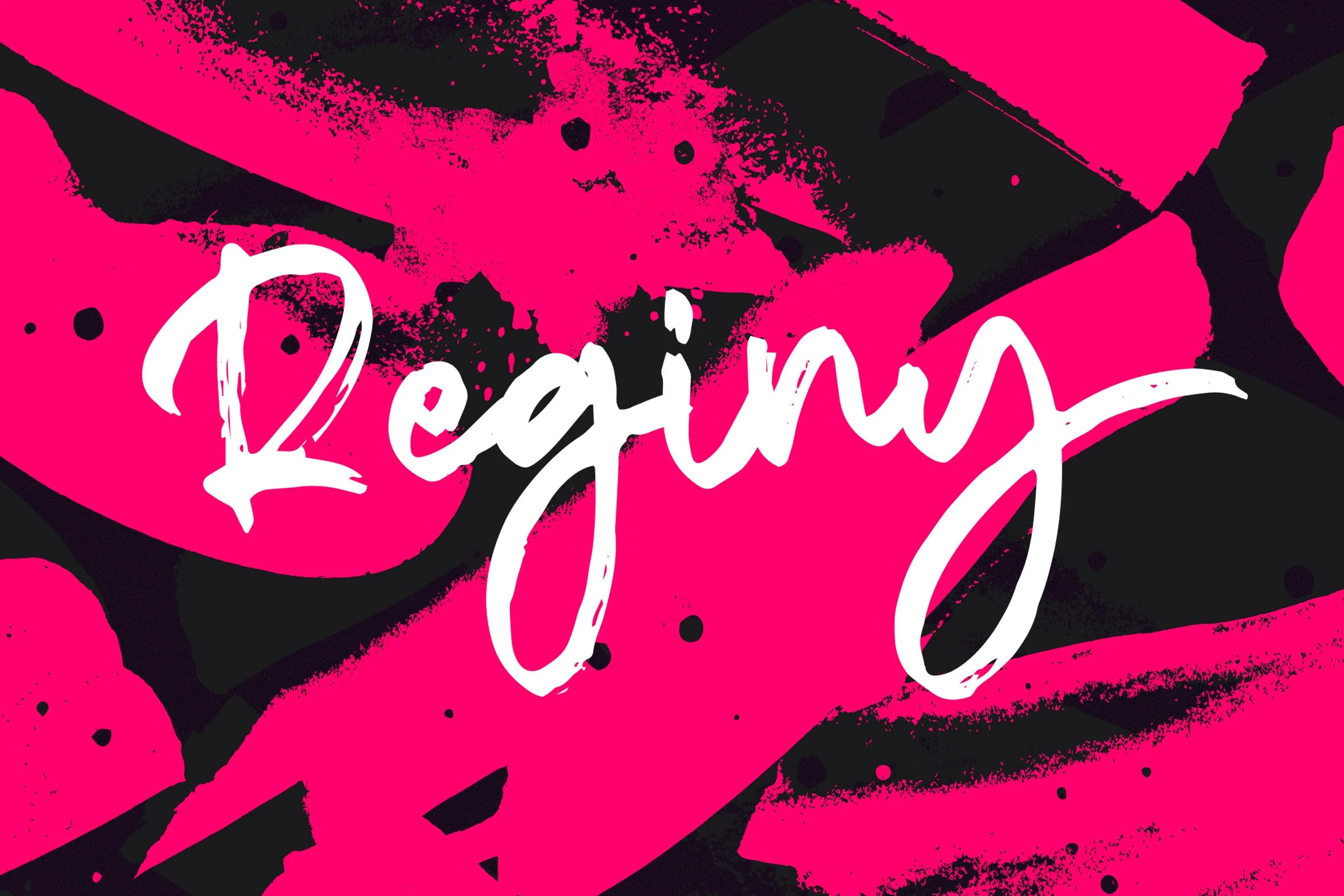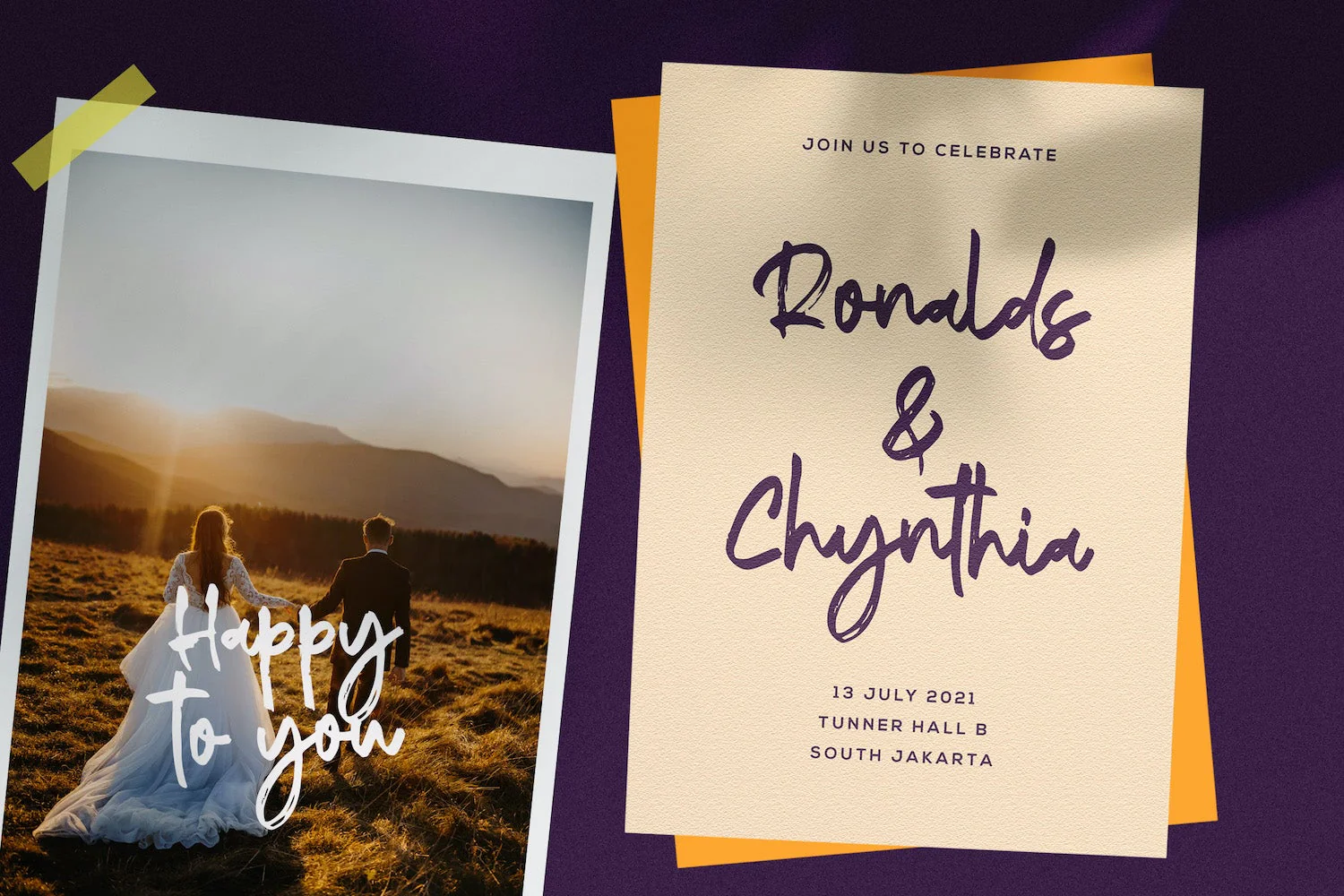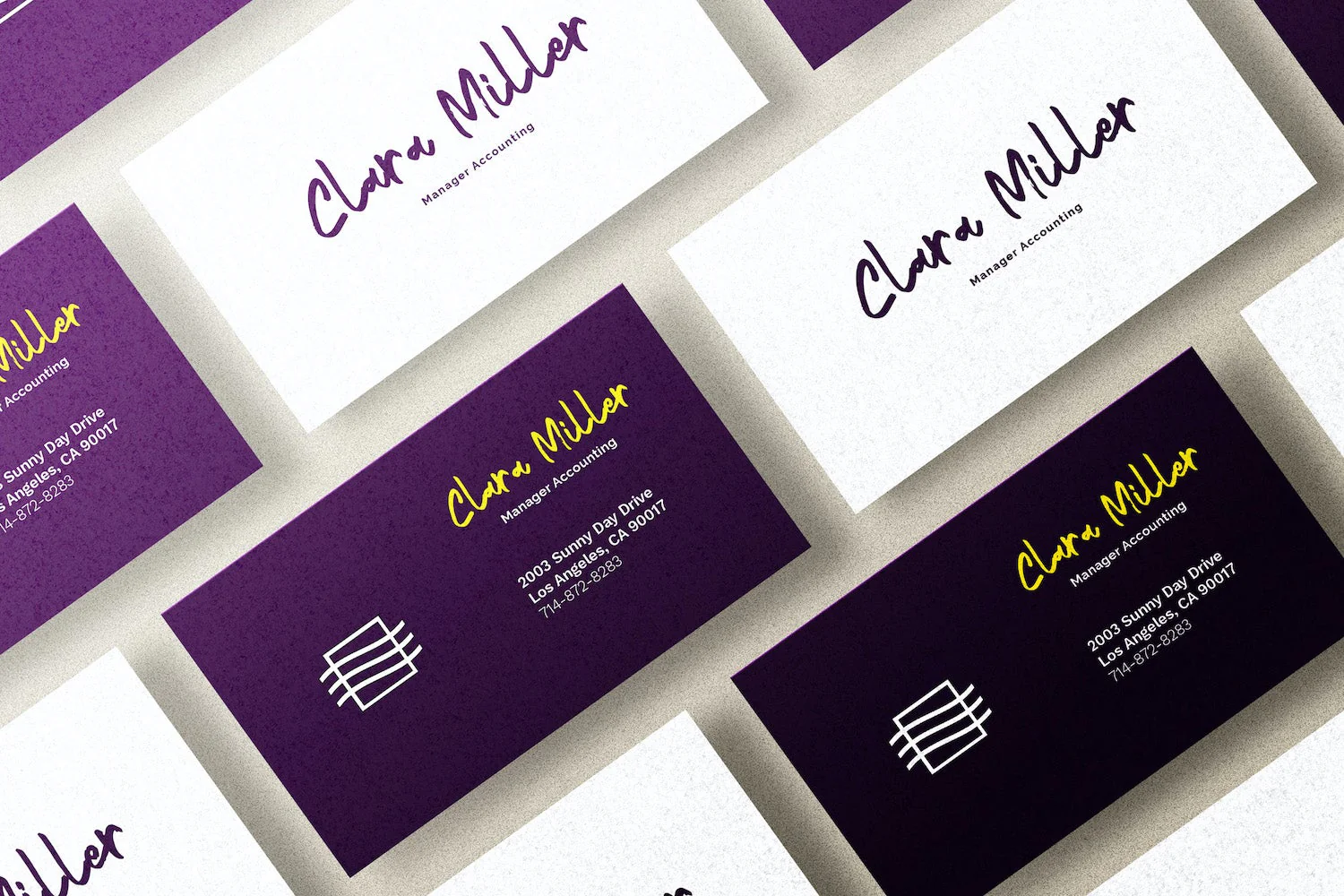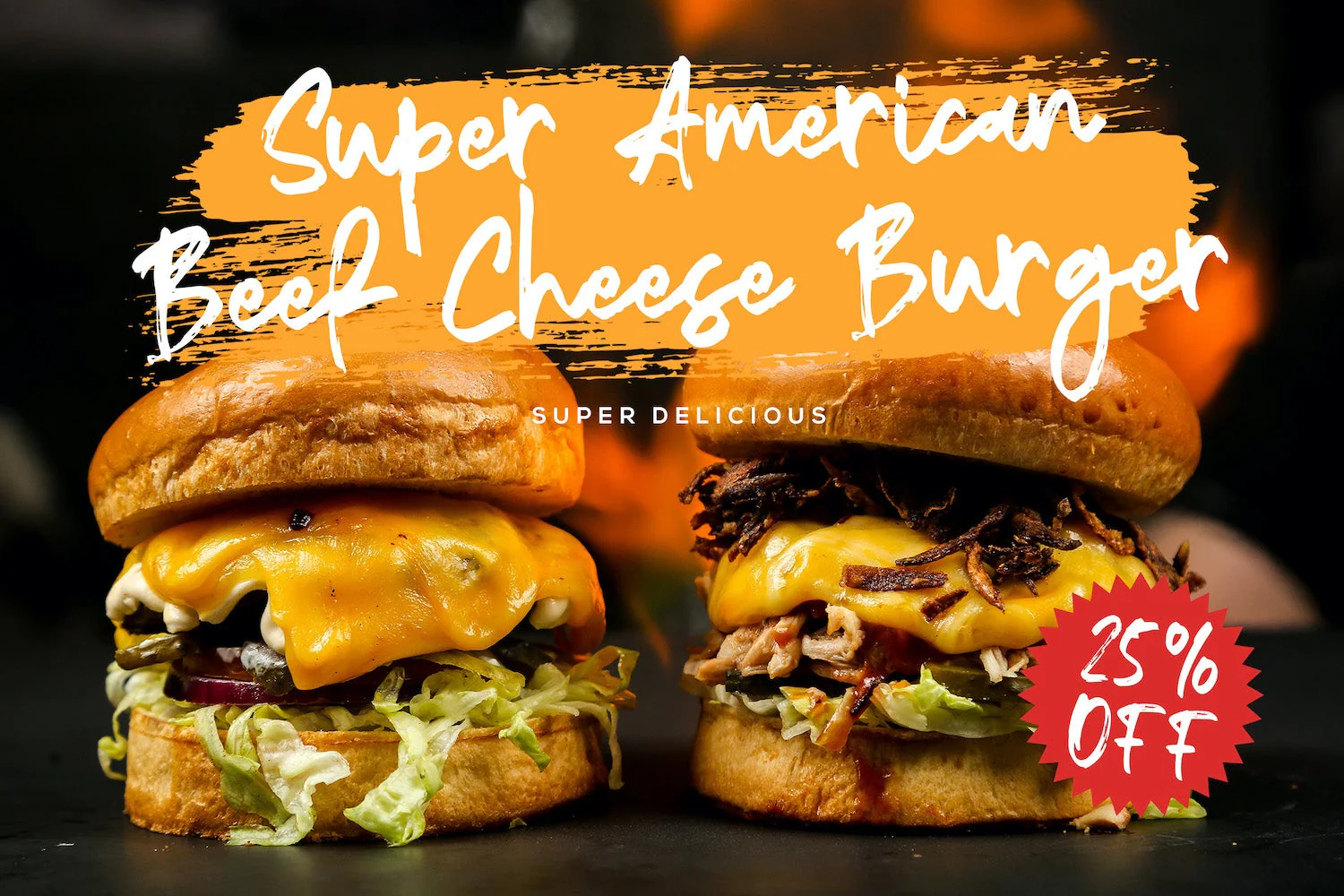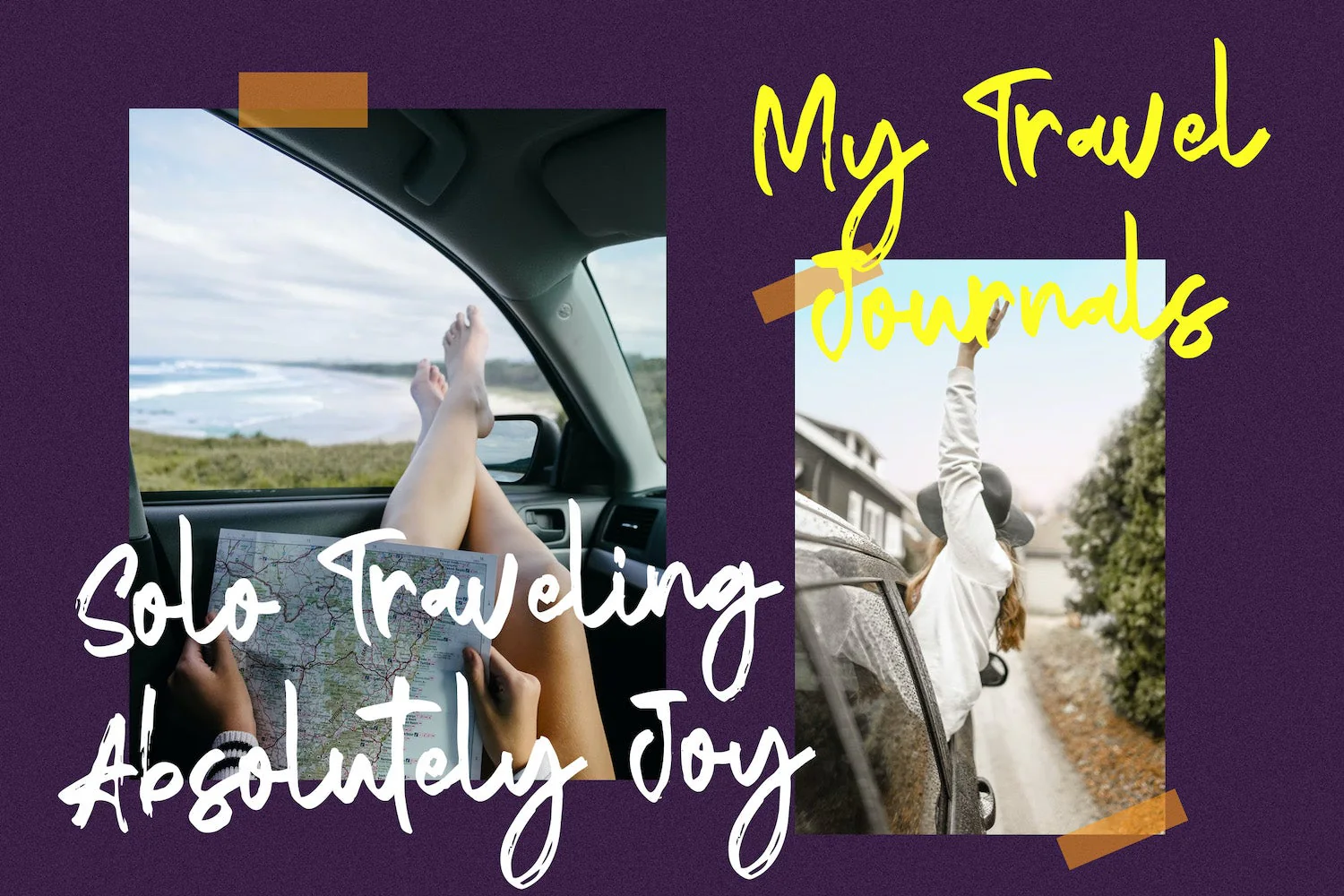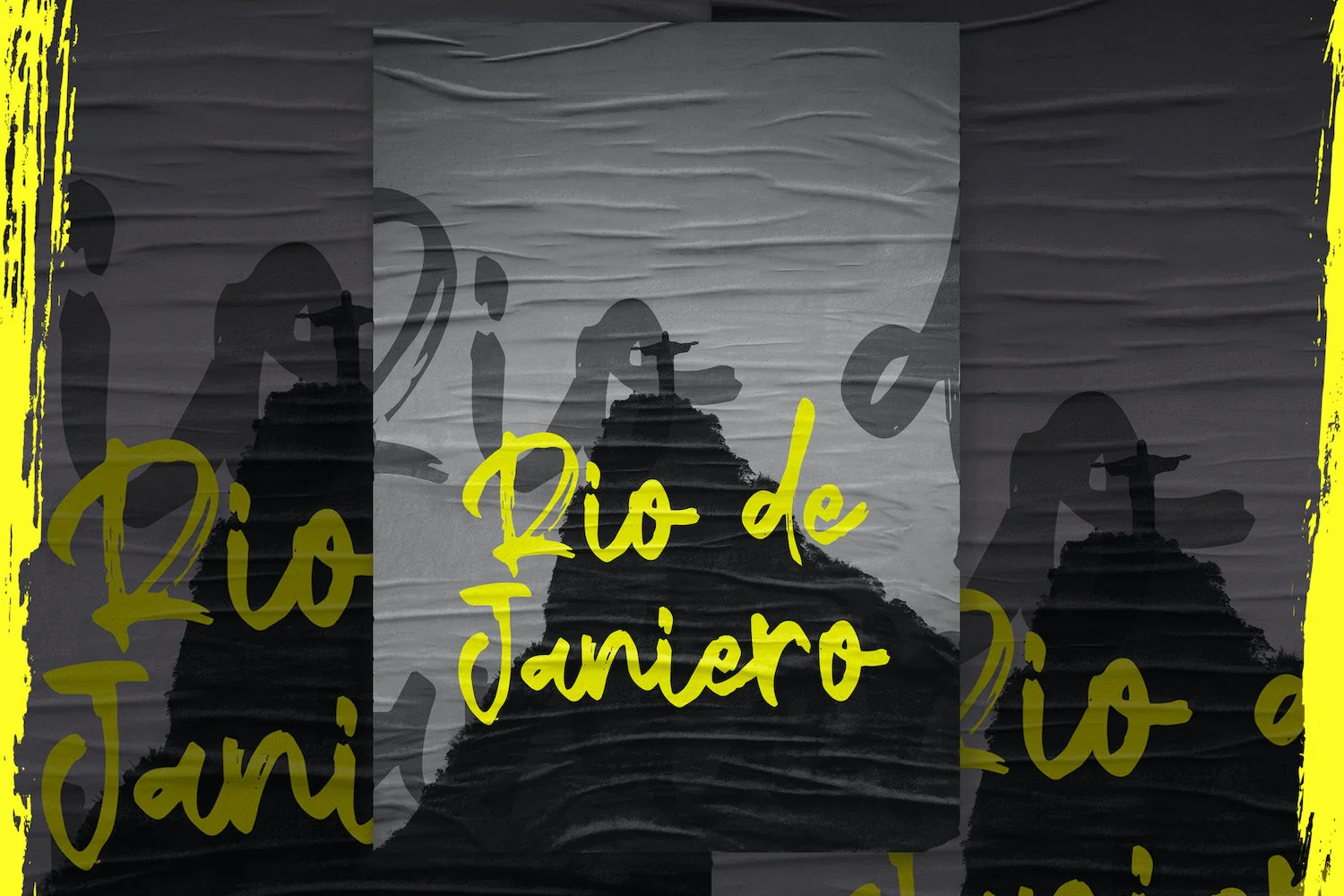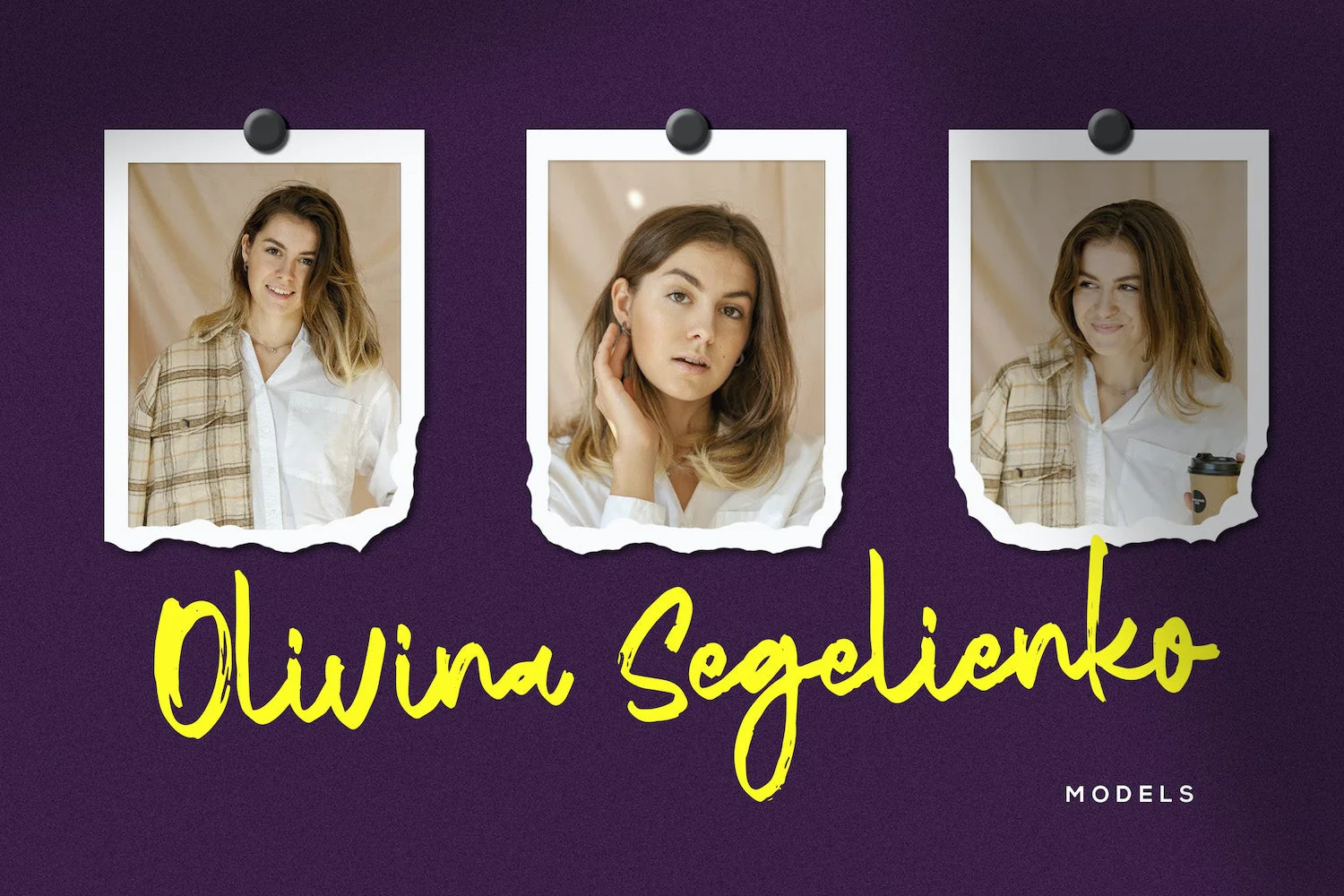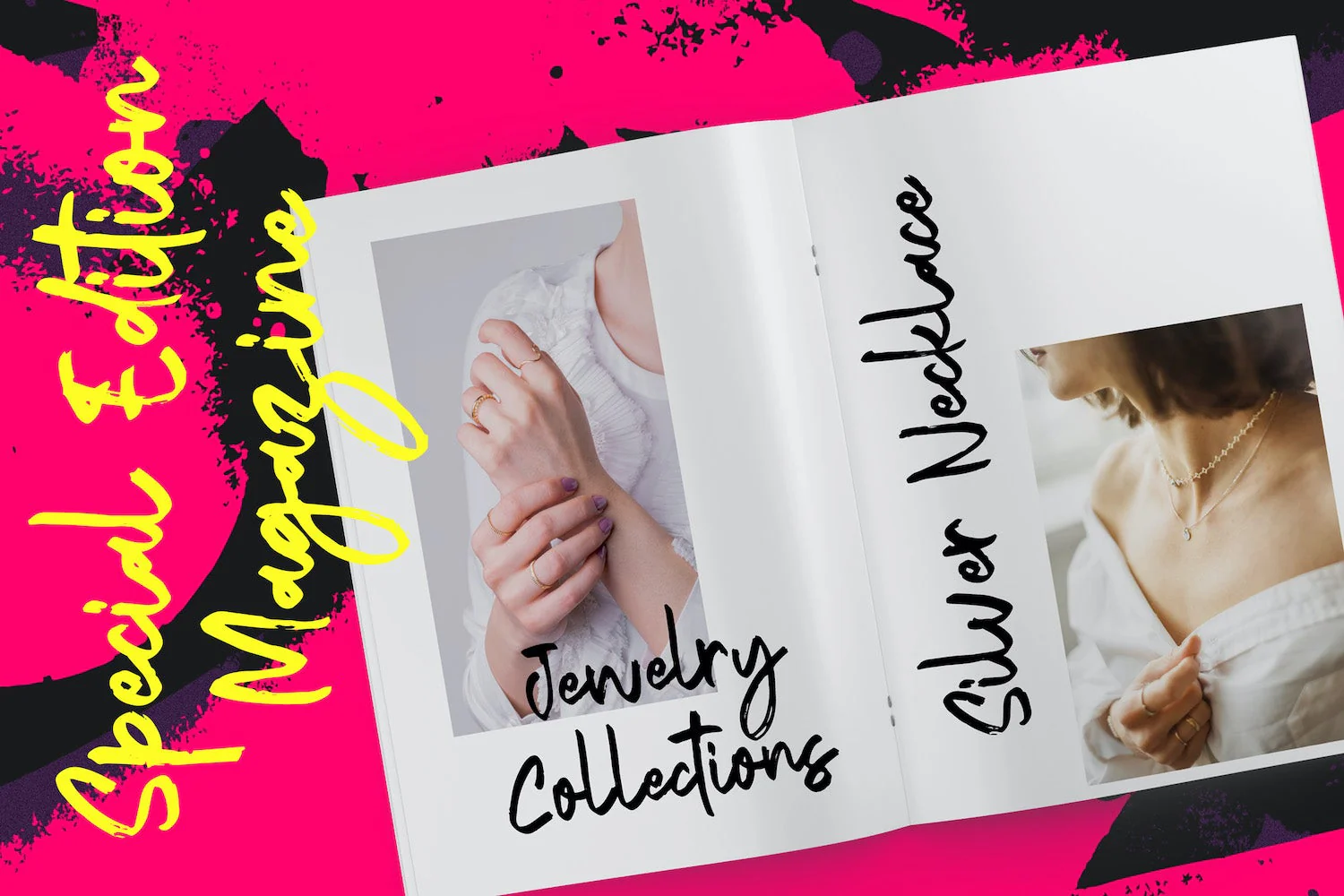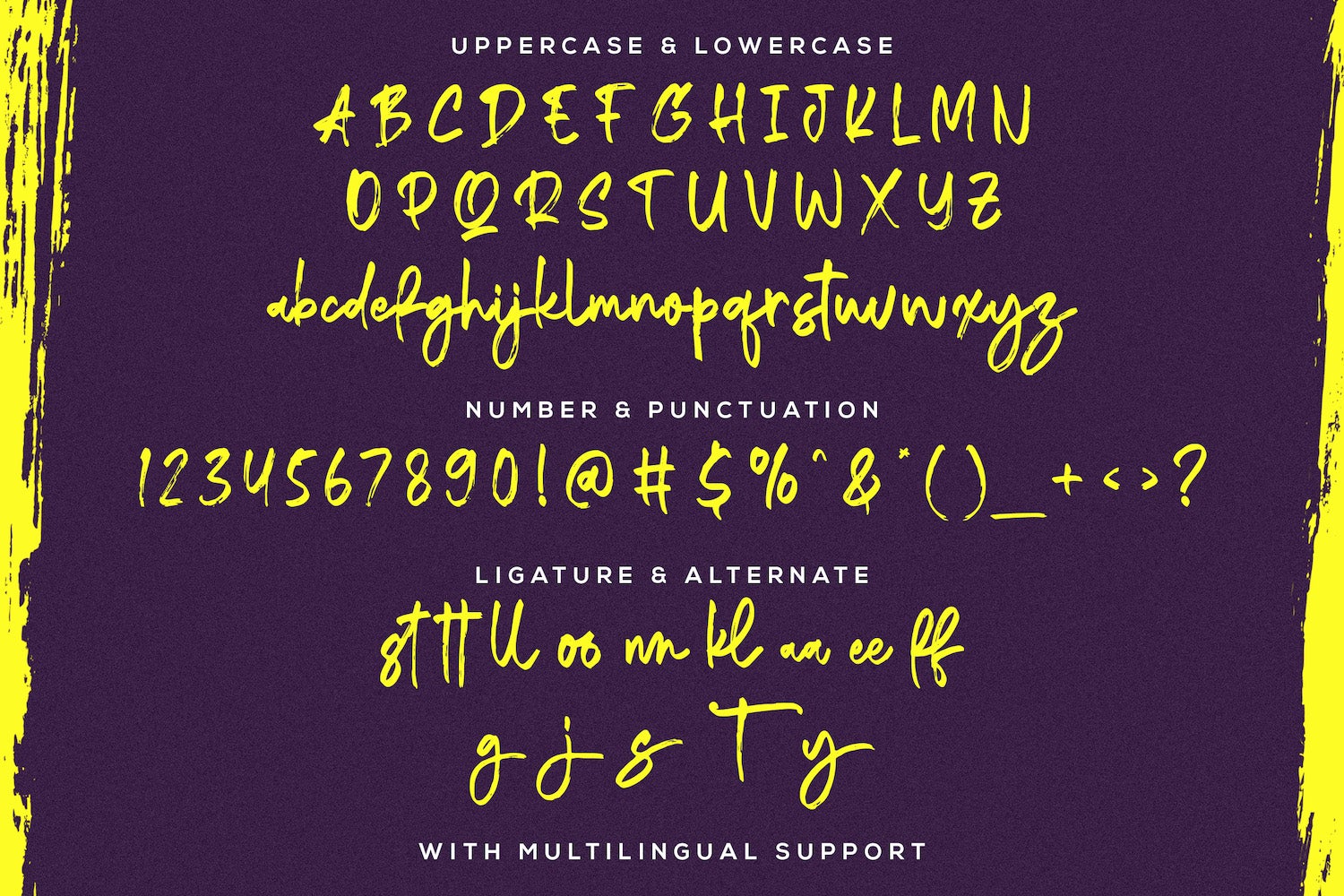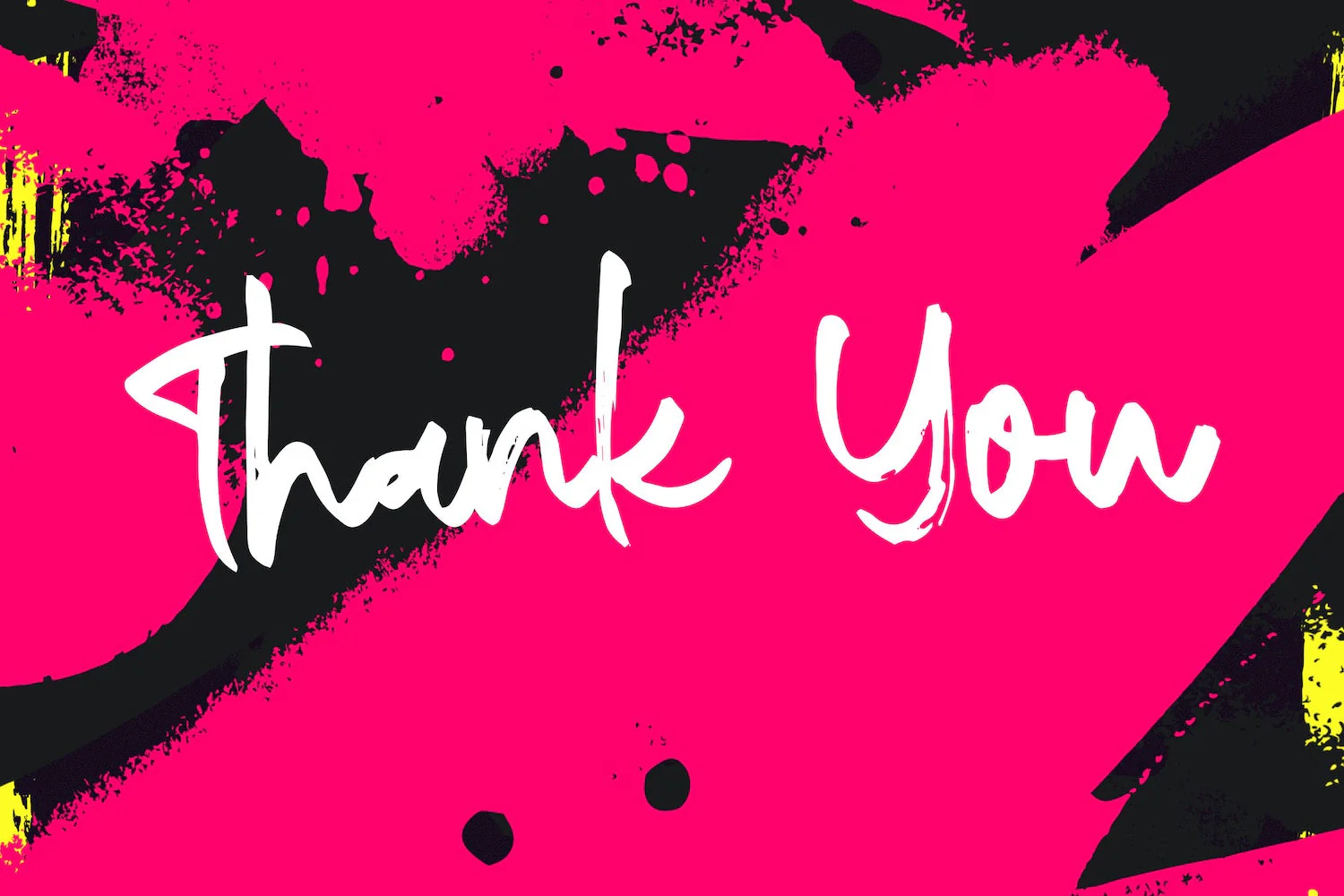
Reginy - Textured Brush Font
Introducing Reginy - Textured Brush Font
Reginy is a textured handbrush font. Get inspired by its unique and beautiful style and add it to your favorite designs!
Introducing Reginy - Textured Brush Font
Reginy is a textured handbrush font. Get inspired by its unique and beautiful style and add it to your favorite designs!